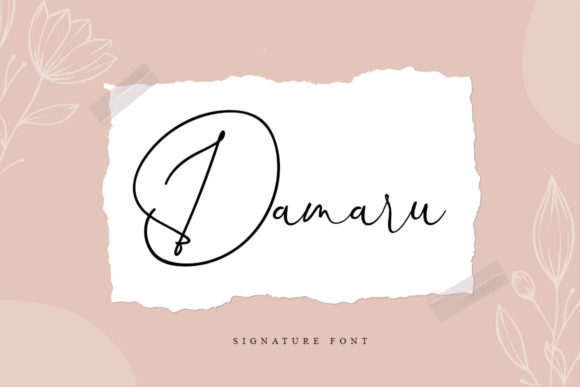
Feast your eyes on the exquisite Damaru Font, a culinary masterpiece designed to tantalize your taste buds and elevate your food packaging to new heights of sophistication. Each letter dances across the page like a delicate brushstroke, capturing the essence of culinary artistry.
Indulge in the art of food labeling with Damaru, a font that transforms ordinary words into mouthwatering masterpieces. Its elegant curves and graceful flourishes evoke the allure of fine dining, inviting customers to savor every bite.
Crafted with the utmost care by the renowned Nico Muslib, Damaru embodies the essence of culinary excellence. Its signature style exudes a timeless elegance that will leave a lasting impression on your packaging.
Unleash your creativity and let Damaru ignite your passion for food presentation. Its versatility knows no bounds, effortlessly complementing a wide range of design aesthetics, from classic to contemporary. Whether you're crafting labels for gourmet chocolates, artisanal cheeses, or tantalizing baked goods, Damaru will elevate your creations to a realm of pure indulgence.
Imagine your food products adorned with the delicate strokes of Damaru, each label a work of art that draws the eye and stimulates the senses. Customers will be captivated by the allure of your packaging, eager to experience the culinary delights within.
With Damaru Font, you'll not only create visually stunning labels but also convey a sense of unparalleled quality and craftsmanship. Your products will stand out from the crowd, enticing customers to indulge in the ultimate culinary experience.